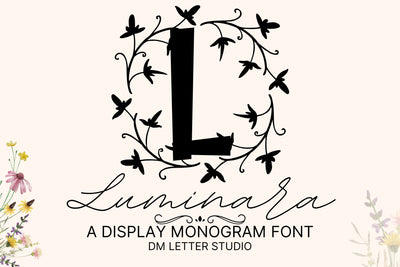
Luminara Monogram – Elegant Serif Monogram Font with Luxurious Detail
Luminara Monogram is a elegant serif font crafted for elegance and timeless sophistication. Its graceful letterforms are inspired by classical type with a modern twist, designed to elevate your monogram projects with a luxurious feel. Perfect for weddings, upscale branding, personalized gifts, and decorative initials, Luminara is all about poise and charm.
Each character features sculpted curves, delicate serifs, and balanced spacing—ideal for creating impactful monogram logos, stationery, and packaging. Whether you're working with a single initial or a full custom name design, the font adapts beautifully to both minimalist and ornate aesthetics.
With its editorial feel and regal presence, Luminara is especially well-suited for high-end brand marks, event stationery, product labels, and engraved signage. It helps projects stand out while maintaining a sense of grace and visual harmony.
Elegant Serif Design: Classic curves meet modern refinement for a timeless monogram look.
Ideal for Luxury Projects: Use it for logos, event materials, packaging, and personal gifts.
Full Character Set: Uppercase A–Z, numbers, punctuation, and multilingual support.